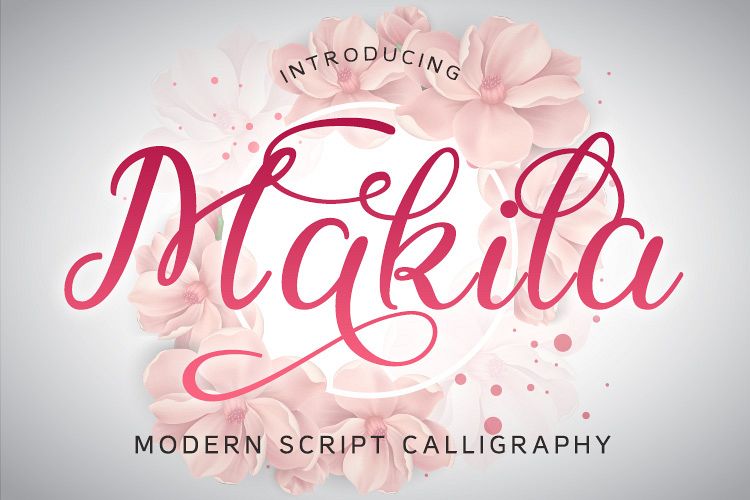
Makila Script - a new fresh & modern script with
a handmade calligraphy style and decorative characters. Ideal for
logos, name tag, handwritten quotes, product packaging, merchandise,
social media & greeting cards. It contains a full set of lower &
uppercase letters, a large range of punctuation, numerals, and
multilingual support.
Makila Script come with 800 glyphs.
Features :
• Uppercase & lowercase
• Punctuation & numerals
• Multi-language characters